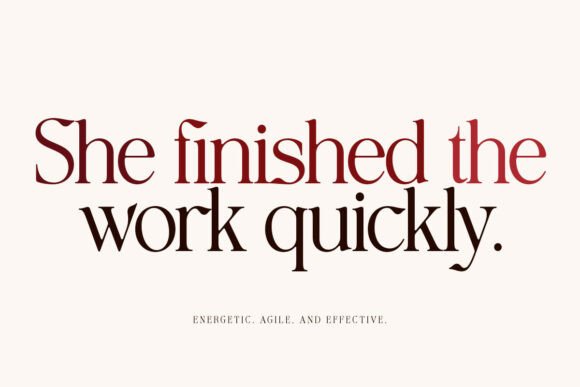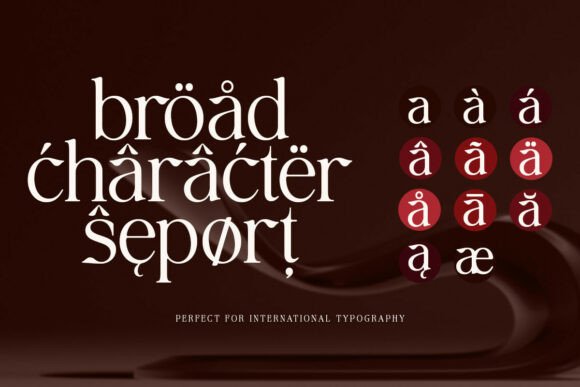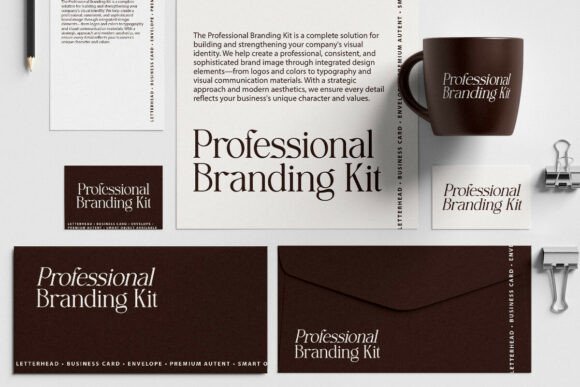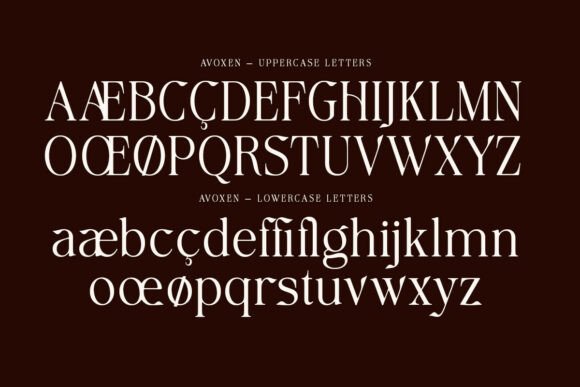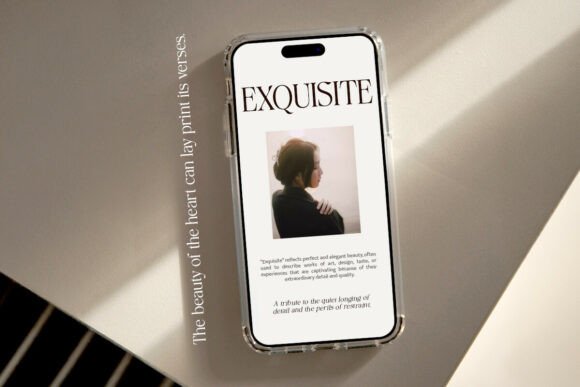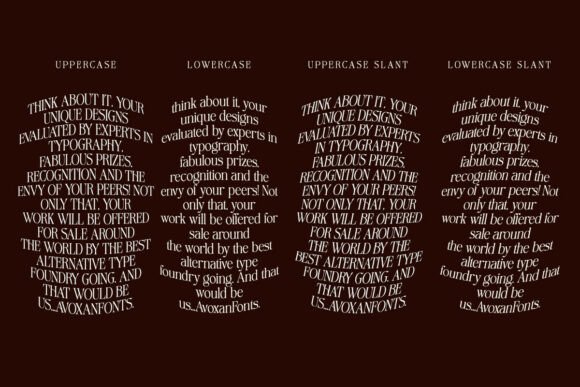
Discover the Elegance of Avoxan Font: A Perfect Blend of Classic Sophistication and Modern Sensibility
Have you ever been in the middle of a design project, pouring your heart and soul into every detail, only to realize that the perfect font is still elusive? I recall a particularly frustrating experience when I was working on an editorial piece, and no matter how hard I searched, I couldn’t find a typeface that conveyed the right balance of elegance and approachability. That’s when I stumbled upon Avoxan, a game-changing font that has since become a staple in my design toolkit.
A Personal Encounter with Avoxan
Avoxan’s refined beauty immediately caught my attention, with its perfect blend of classic sophistication, modern sensibility, and subtle softness. Every curve and contour of this typeface is carefully crafted to convey grace, confidence, and a gentle touch of elegance. Its high-contrast strokes and smooth transitions form a captivating visual harmony that enhances any design with quiet refinement.
Key Features of Avoxan
Avoxan boasts an array of features that make it an excellent choice for designers, crafters, and creative hobbyists. Some of its key features include:
- Effortless Elegance: Smooth curves, balanced proportions, and a gentle touch of softness ✨
- Precision and Artistry: Finely sculpted serifs, harmonious proportions, and a focus on typographic excellence ✅
- Fluid Motion: The true Slant introduces a sense of movement and graceful rhythm, offering designs that feel both elegant and effortlessly human 🌈
An Honest Review of Avoxan
What I Love About Avoxan
- ✨ Exceptional versatility, suitable for a wide range of design projects, from editorials to branding and web design
- ✅ Impeccable typography, with precise letterforms and beautiful kerning
- 💫 Avoxan’s unique blend of classic and modern elements makes it stand out in any design
While Avoxan is an outstanding typeface, there are a few minor considerations to keep in mind:
- ⚠️ Avoxan’s elegant, high-contrast strokes may not be the best fit for very small font sizes or low-resolution displays
- 🤔 Some users may find the font’s subtle softness and rounded edges less suitable for very formal or traditional designs
Exploring Avoxan’s OpenType Features
Avoxan offers a range of OpenType features that can enhance your designs, including:
- Stylistic alternates: Swap out characters for alternate forms that add visual interest to your text
- Glyphs: Access a range of decorative glyphs and ornaments to embellish your design
- Ligatures: Use ligatures to create beautiful connections between characters
The Backstory of Avoxan
Avoxan’s design story begins with a passion for typography and a desire to create a typeface that embodies the perfect balance of elegance and approachability. Inspired by the classic typefaces of the past, Avoxan’s designer sought to create a font that would bring a touch of sophistication and softness to modern designs. Through careful craftsmanship and attention to detail, Avoxan was born – a typeface that celebrates the timeless beauty of typography with a contemporary and tender expression.
Q: What makes Avoxan unique?
A: Avoxan’s unique blend of classic sophistication, modern sensibility, and subtle softness sets it apart from other typefaces.